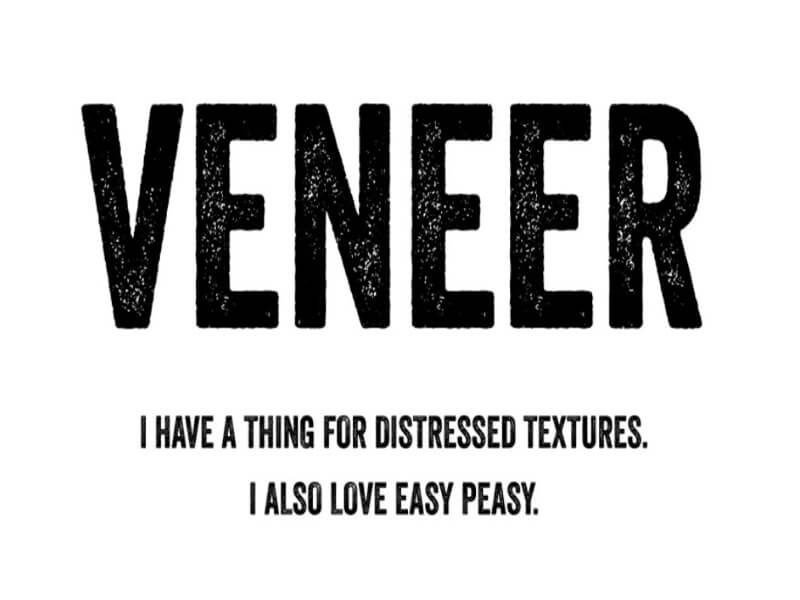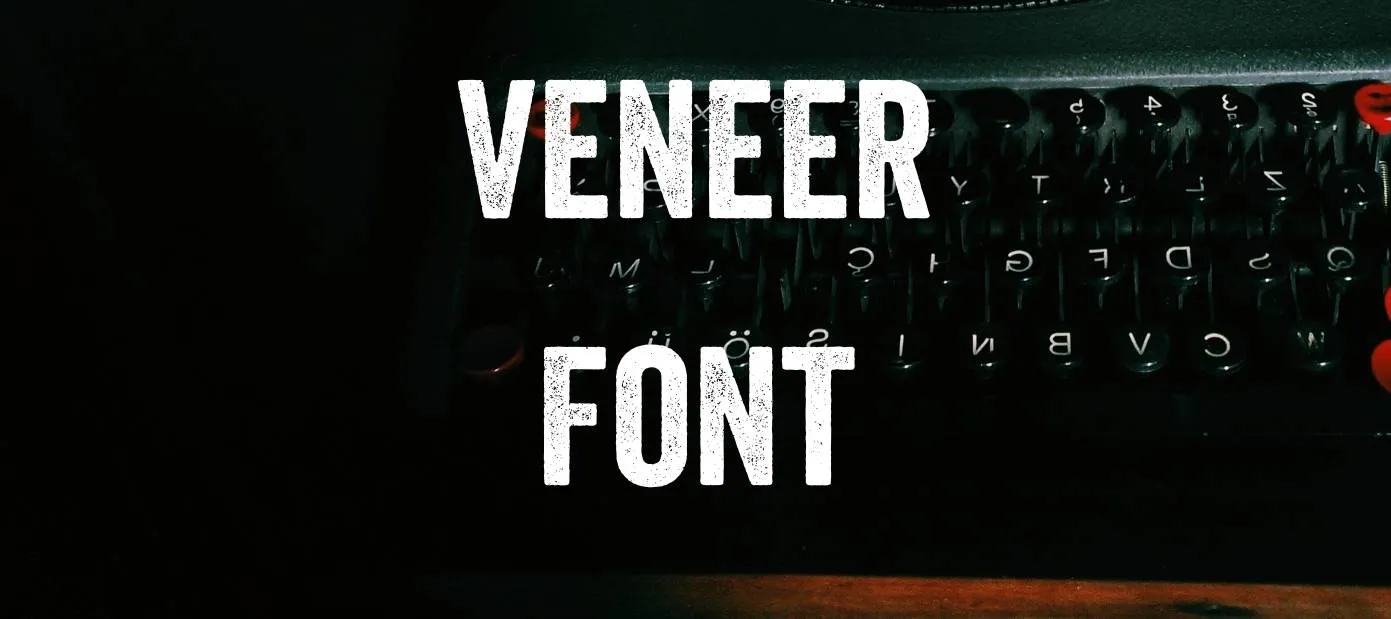
Veneer Solid Font
Veneer Solid Font - A sans serif typeface with 6 styles, available from adobe fonts for sync and web use. The veneer family includes veneer, veneer two, and veneer three with veneer.
A sans serif typeface with 6 styles, available from adobe fonts for sync and web use. The veneer family includes veneer, veneer two, and veneer three with veneer.